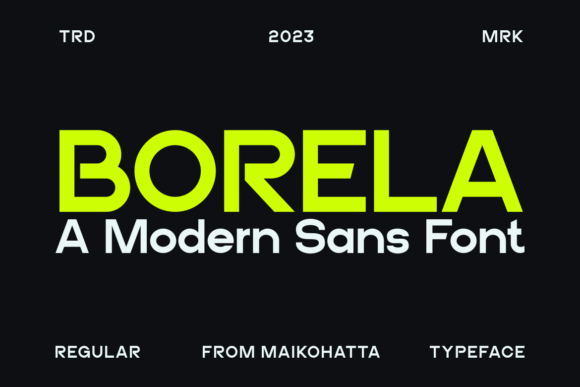
Welcome to the realm of Borela, the font that reflects sophistication and style. Its elegant curves and clean lines create an alluring visual experience, elevating your designs to new heights. Prepare to be enthralled by the beauty and versatility of this sans serif masterpiece.
Borela's allure lies in its simplicity and grace. Its minimalist design allows you to focus on what matters most - your content. Whether you're crafting a captivating book cover, a stunning magazine layout, or engaging social media posts, Borela provides the perfect canvas to showcase your words.
Imagine your book cover adorned with Borela's exquisite characters, drawing readers into your story from the first glance. The clean lines and balanced proportions create a sense of order and harmony, ensuring that your message shines through.
Envision your social media posts transformed by Borela's sleek and modern aesthetic. The font's sharp edges and crisp details will make your words pop, capturing the attention of your audience. Your followers will be drawn to the visual appeal of your posts, eager to engage with your content.
Feel the elegance as you craft invitations using Borela. The font's delicate strokes and timeless style will add a touch of sophistication to any occasion. Your guests will appreciate the attention to detail, knowing that you've chosen a font that exudes both beauty and refinement.
With Borela at your fingertips, the possibilities are boundless. Its versatility extends to logos, branding materials, and even web design. Let your creativity soar as you explore the endless applications of this versatile font.
Borela isn't just a font; it's a statement. It's a reflection of your impeccable taste and discerning eye. When you choose Borela, you choose a font that speaks volumes about your brand and your passion for excellence.